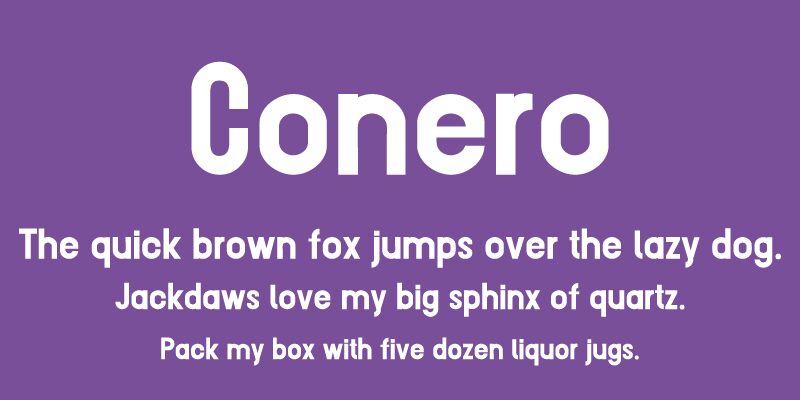
Conero by Erion Dyrmishi is a free condensed sans serif with a severe, poster-scale silhouette and unusually narrow proportions. Its towering letters alternate broad heavy strokes with hairline-thin sections, creating abrupt changes of weight across the letters. The letters sit exceptionally close together.
Packaging gives this typeface a forceful vertical brand mark without relying on ornament. Its compressed proportions also suit magazine covers, music posters, and event signage, especially when a narrow format needs lettering with real density. The stark stroke changes connect those uses to fashion, club culture, and other subjects built around a sharp metropolitan look.